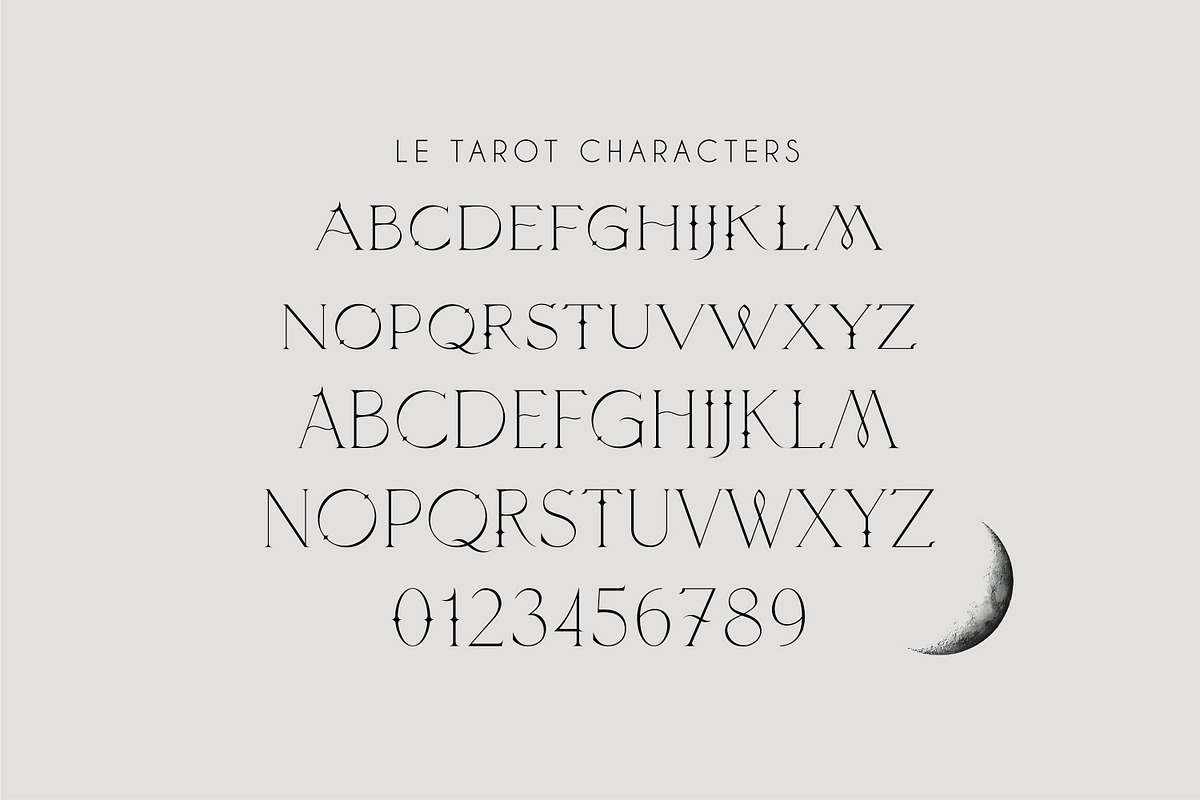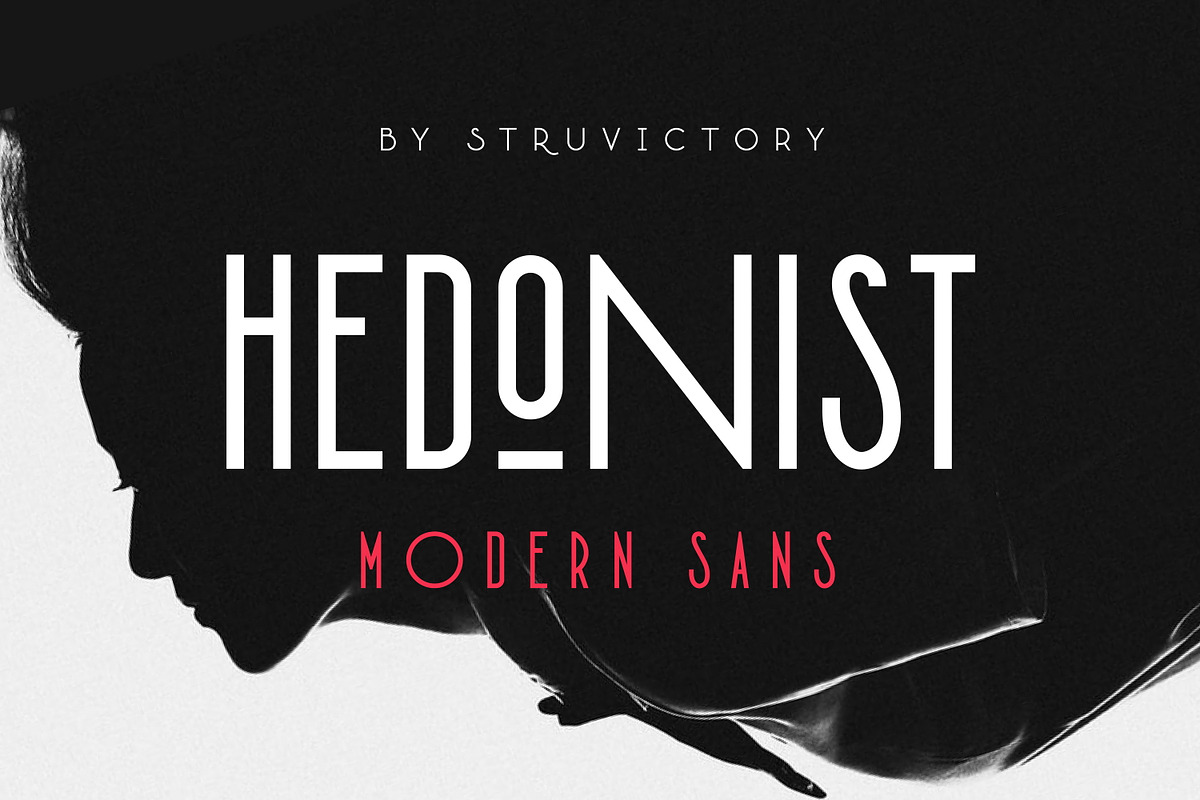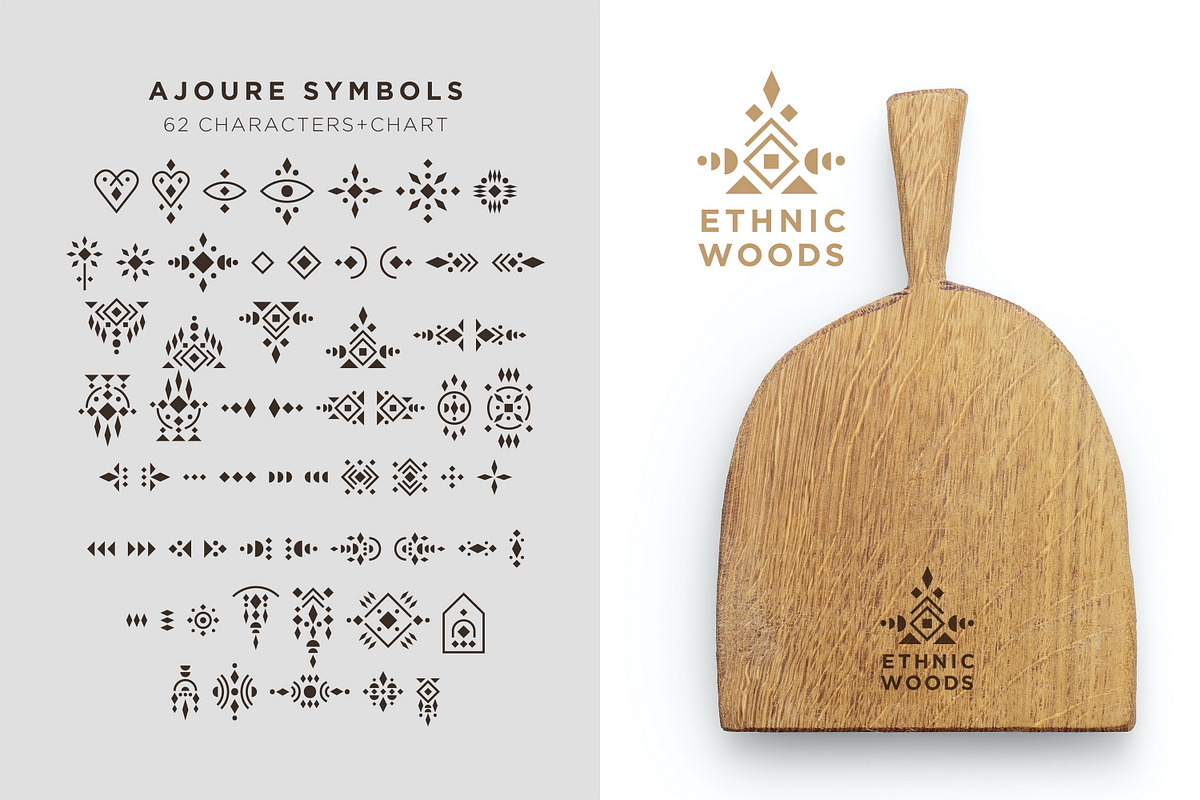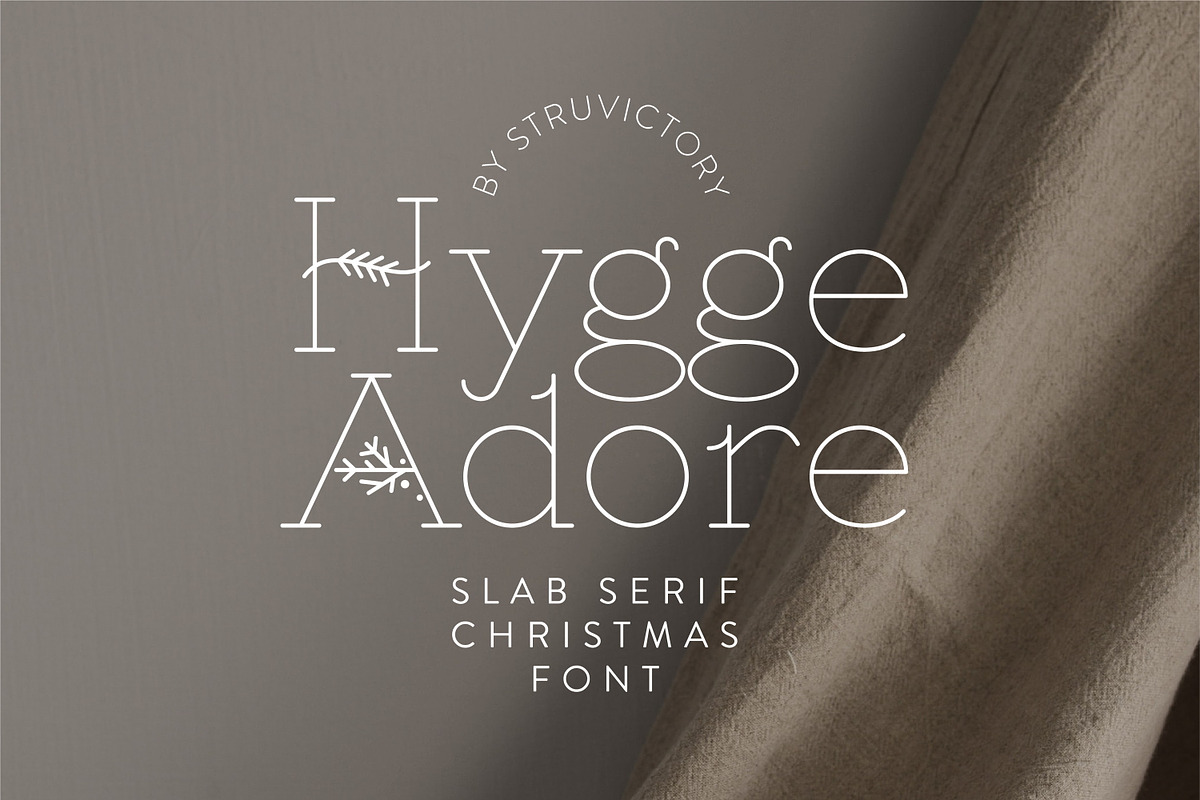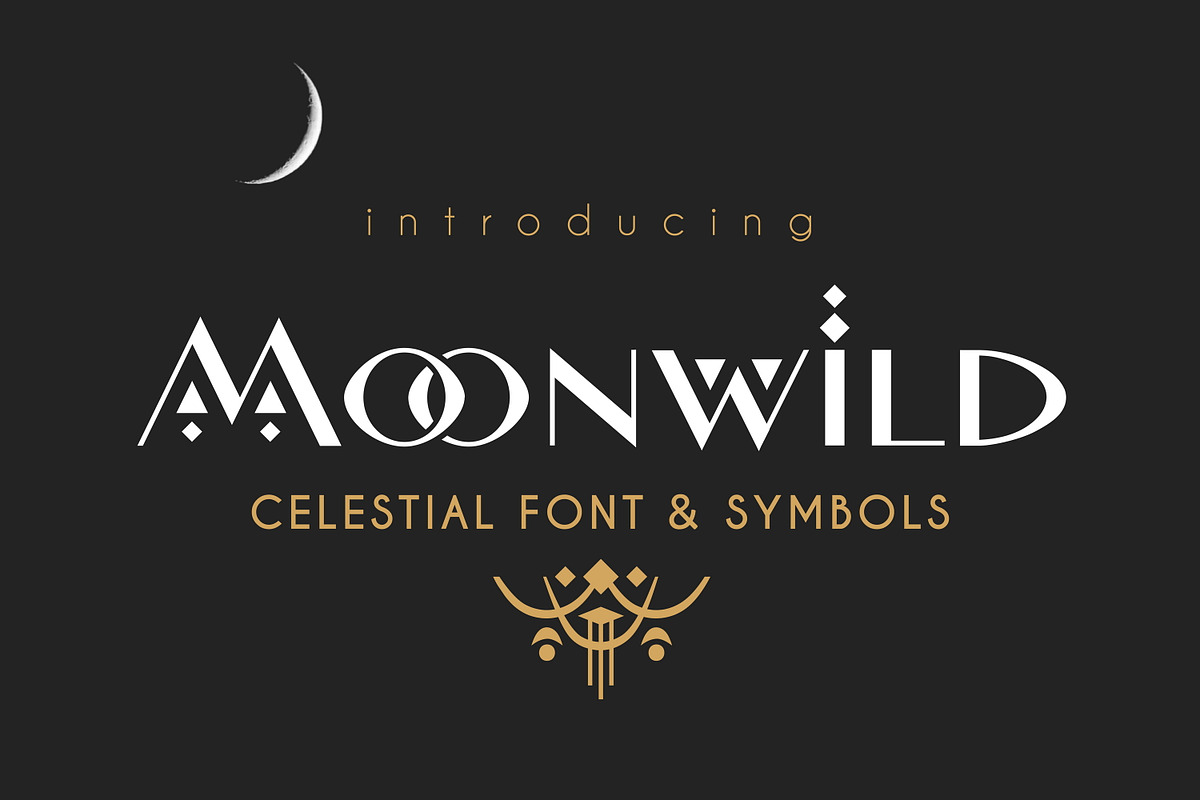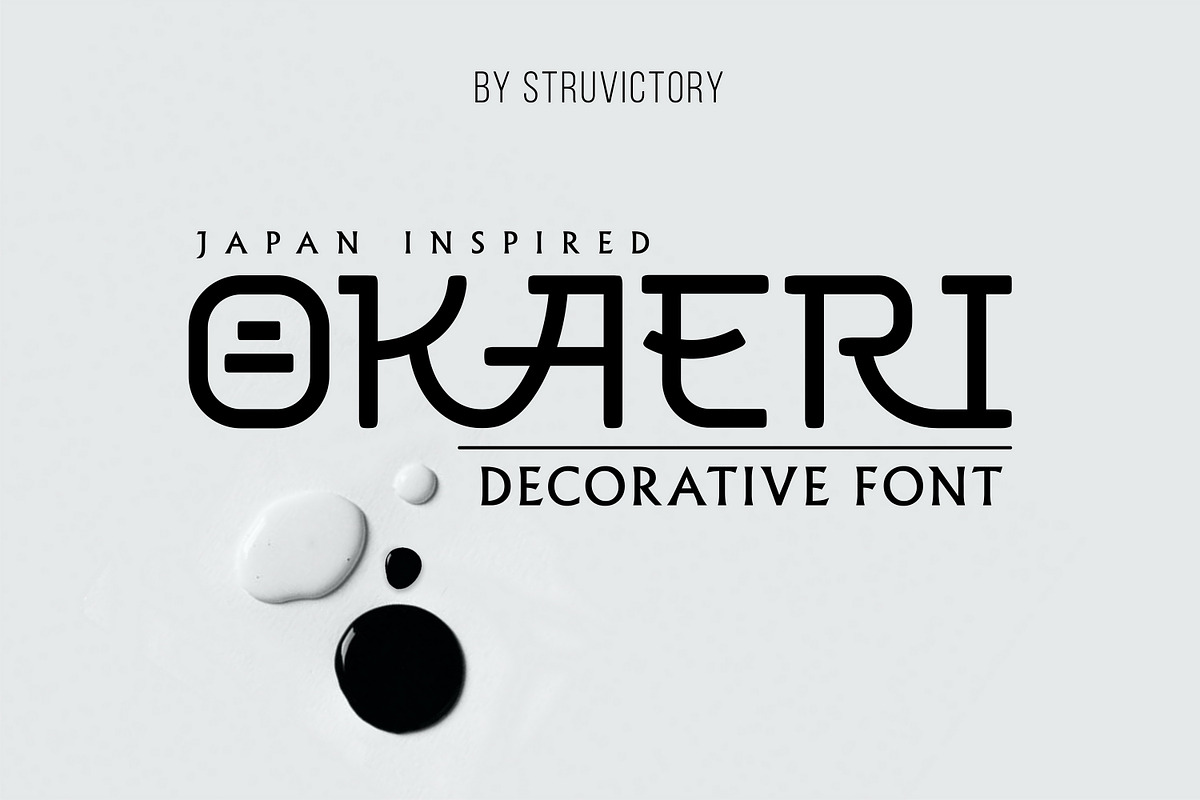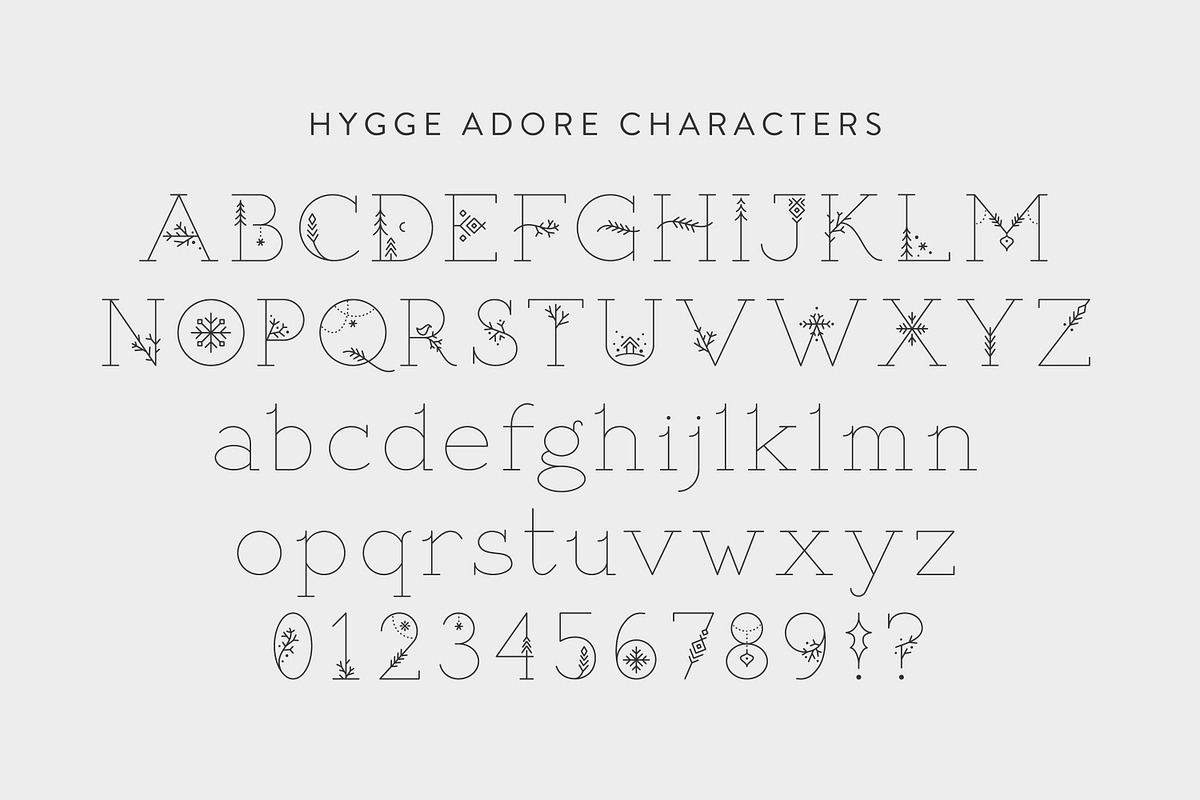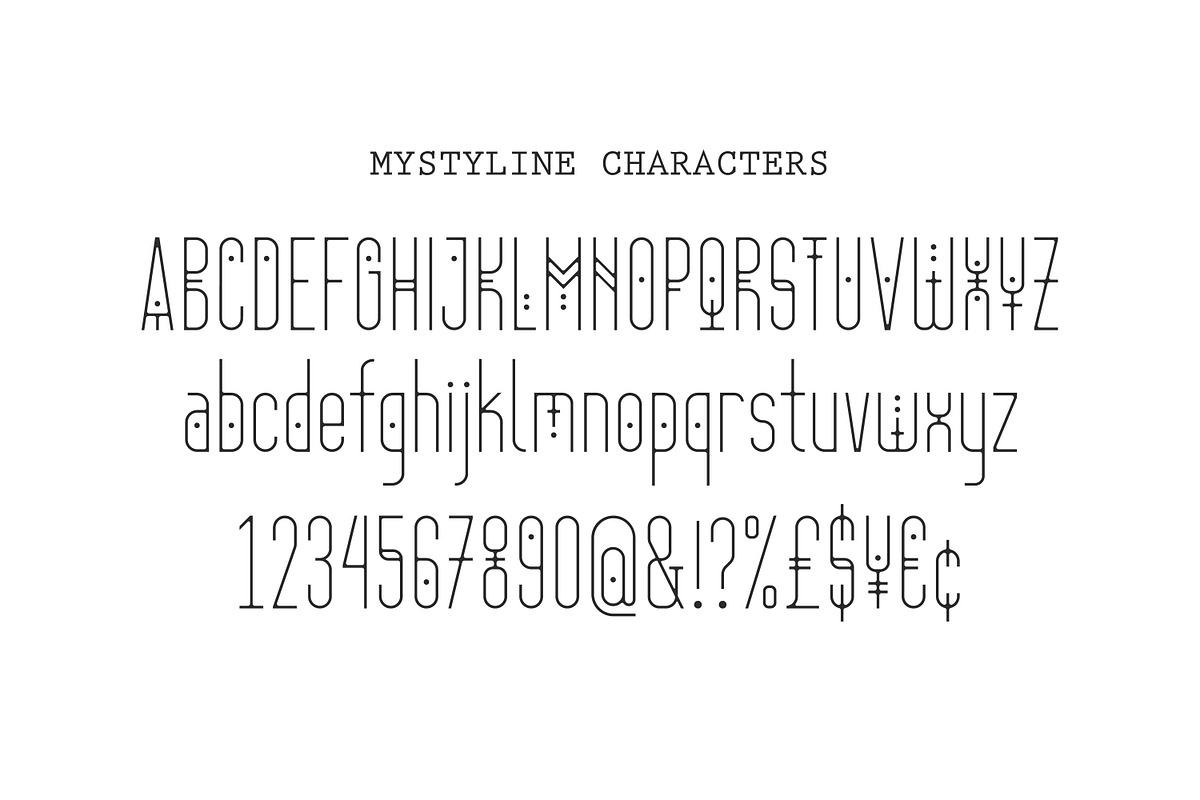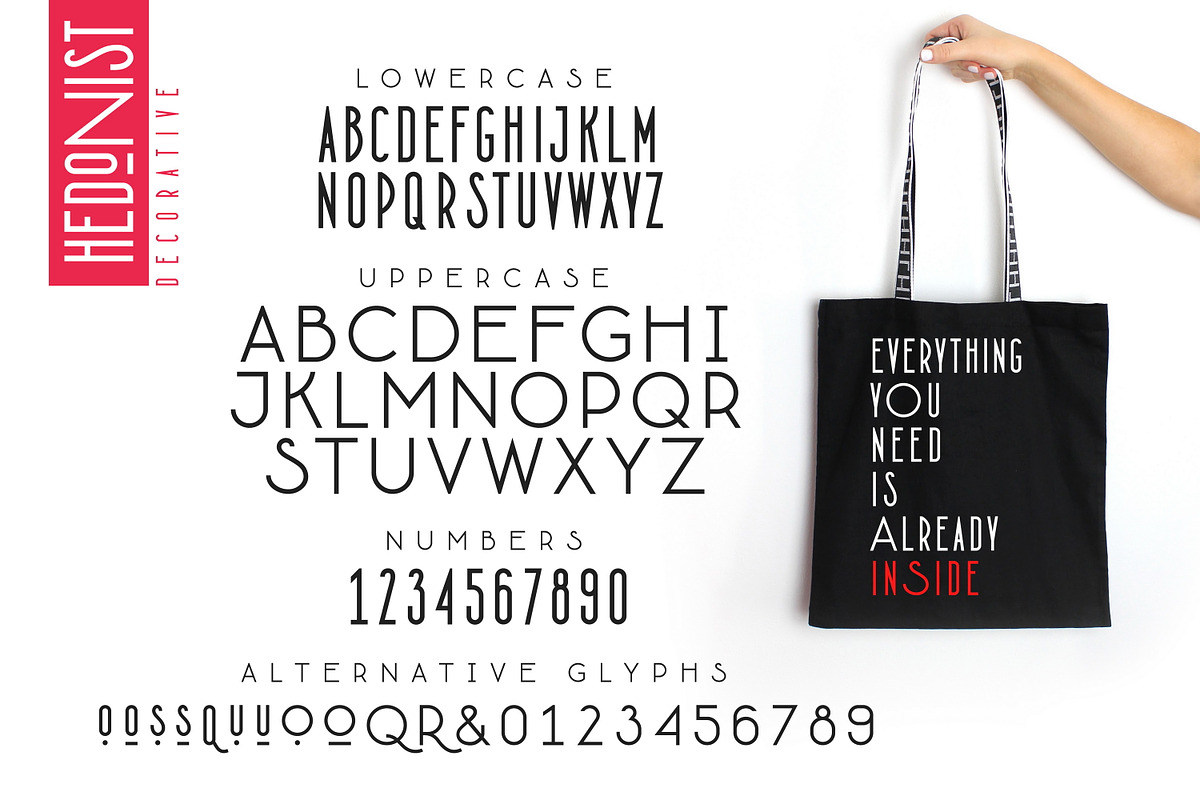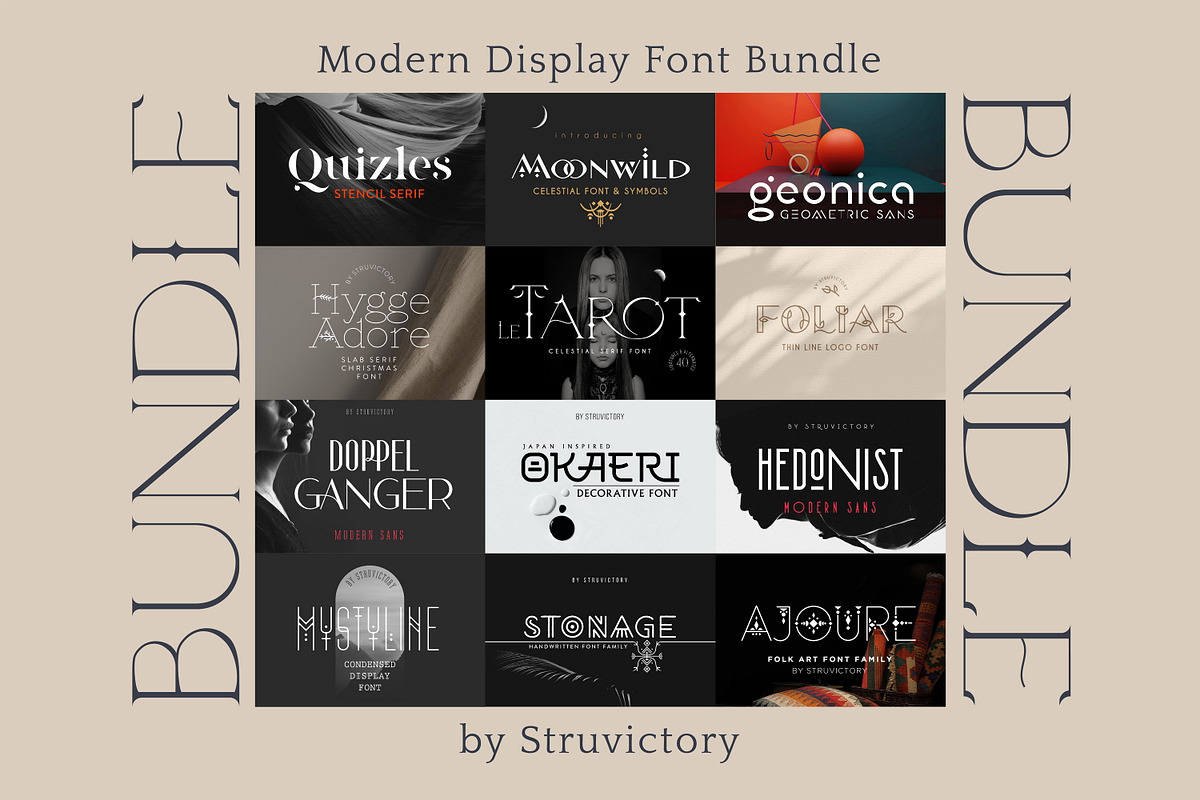
Modern Display Font Bundle
The bundle includes modern display fonts in celestial, folk art, boho, floral and japanese styles and additional symbol sets. The bundle includes 12 items with 16 fonts. 80% discount: $44 instead of $190! Each font is saved in four formats: OTF, TTF, WOFF, WOFF2.